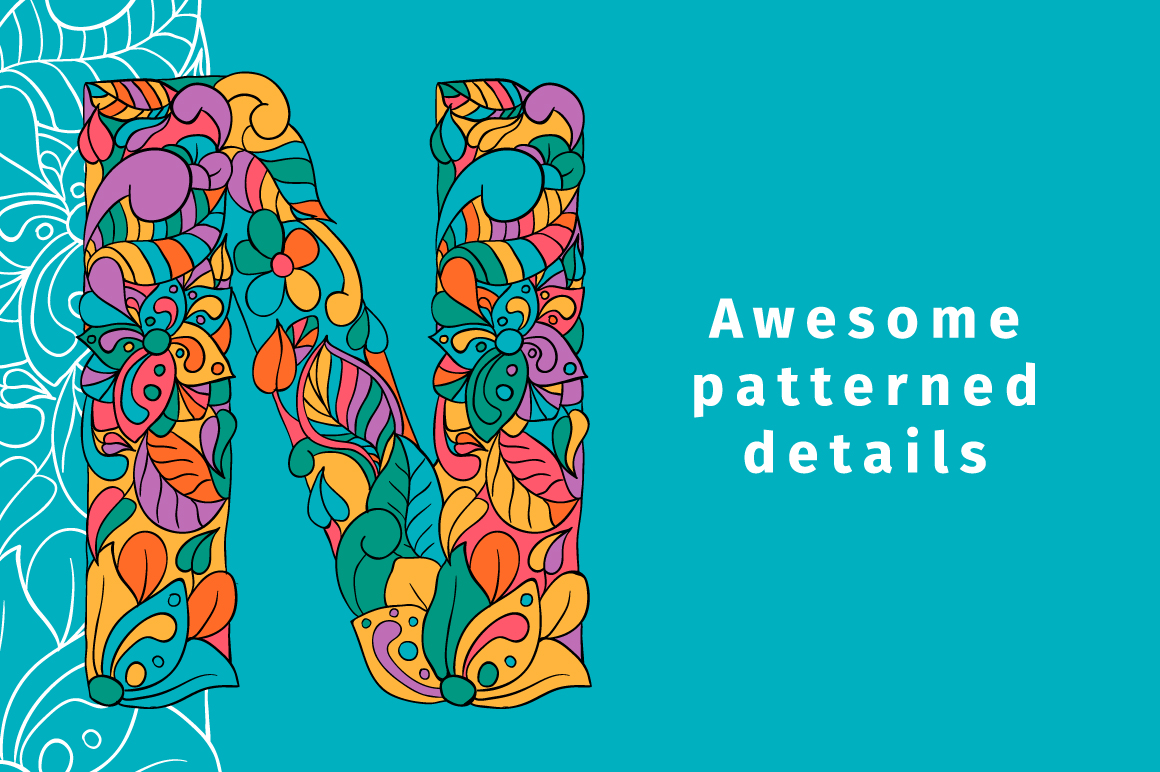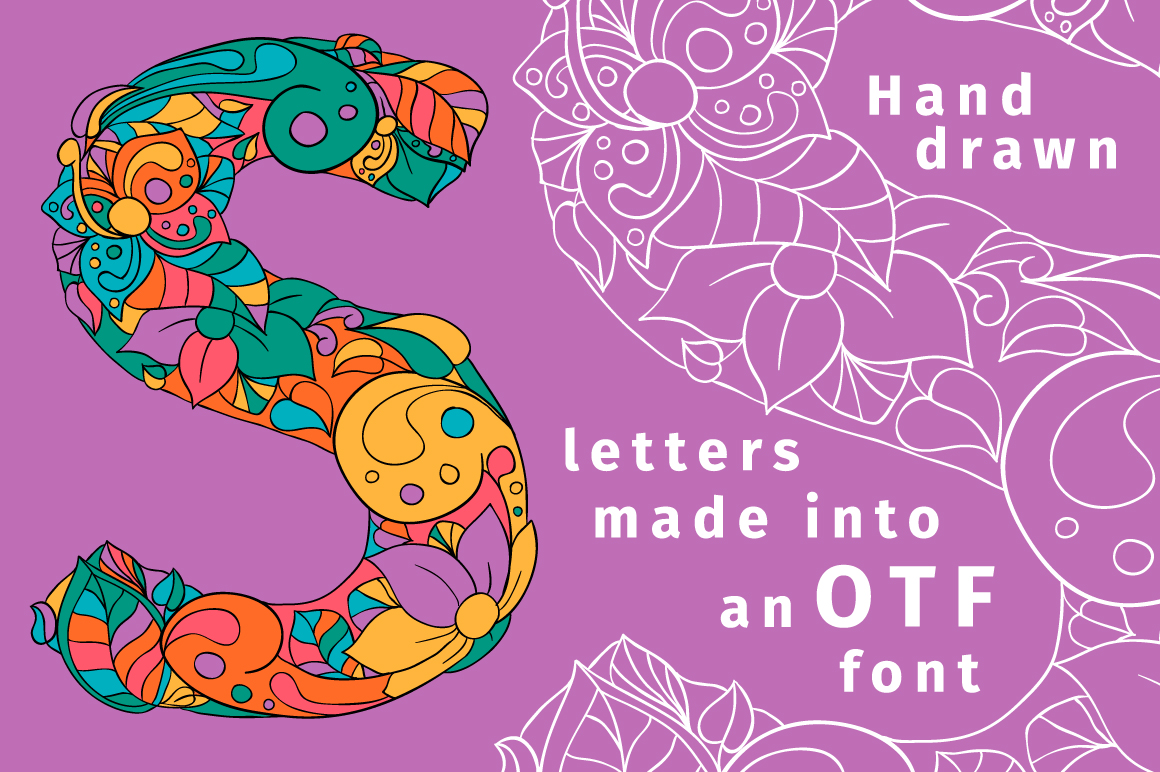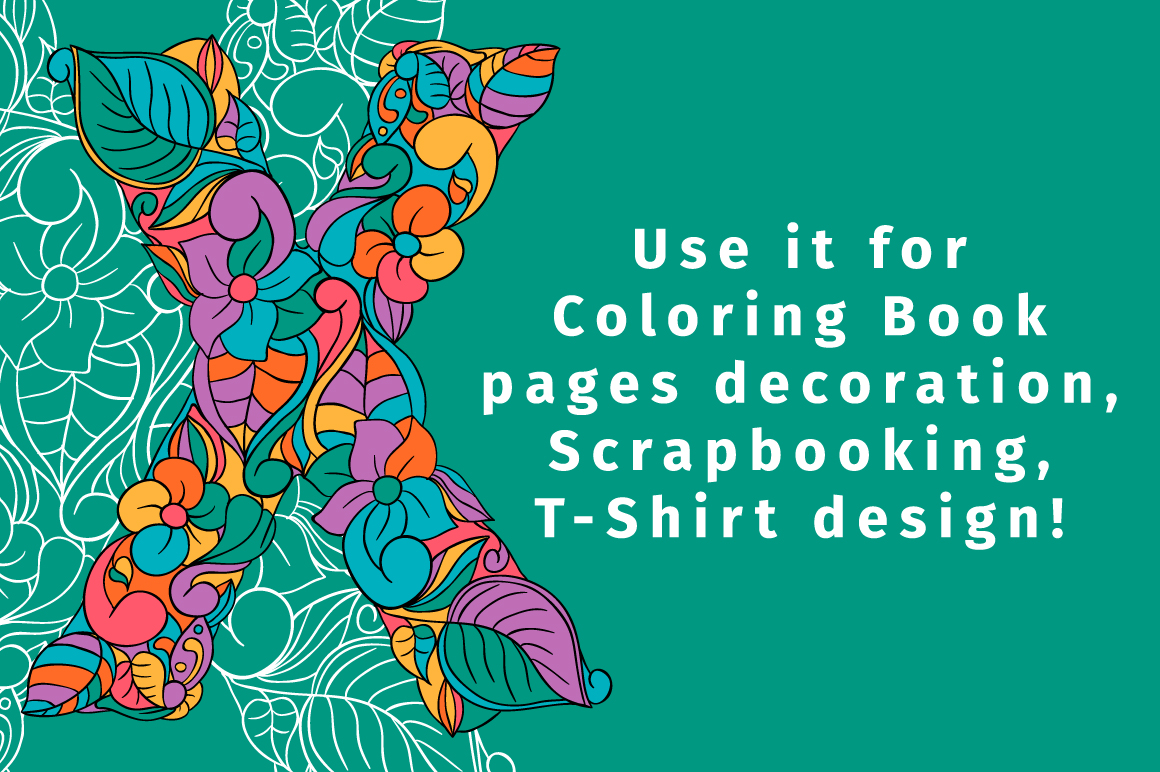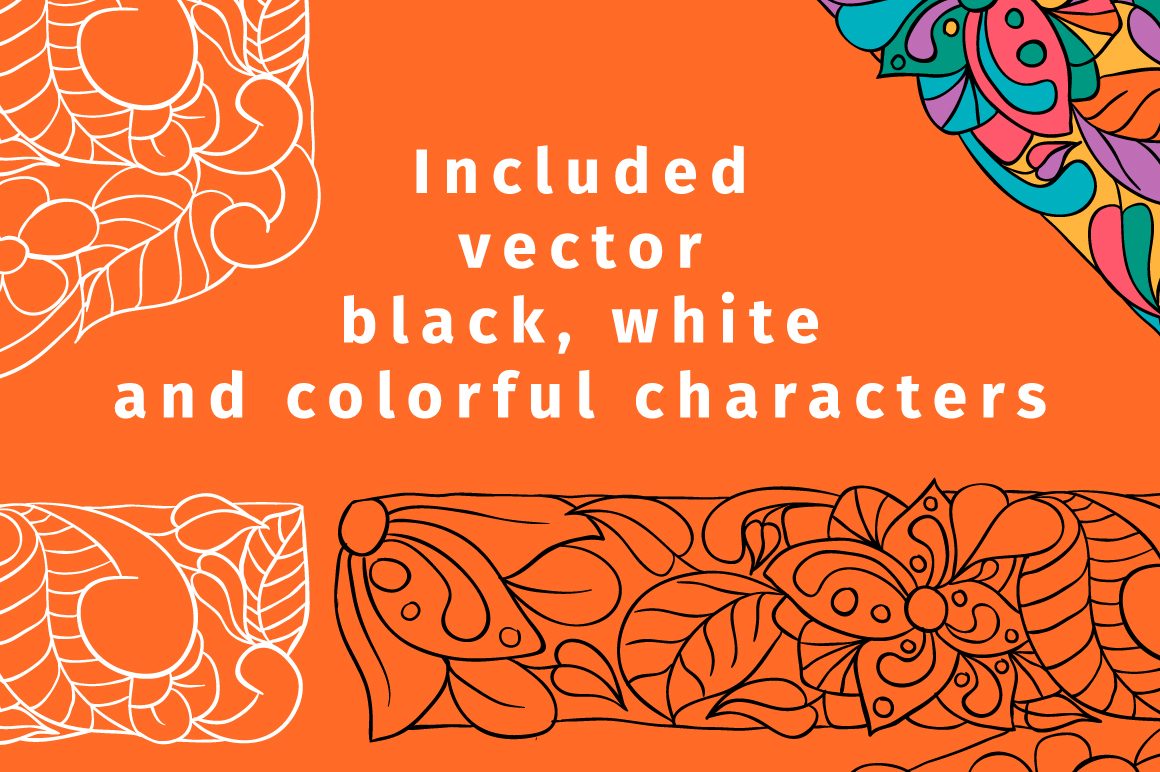
Batik India Color Font
Welcome to my shop! I'm happy to introduce my colorful BITMAP font crafted with hand drawn line art graphic and the Photoshop add-on, Fontself
Batik India Color Font
The letters from this font are drawn by hand then carefully digitized in Adobe Illustrator